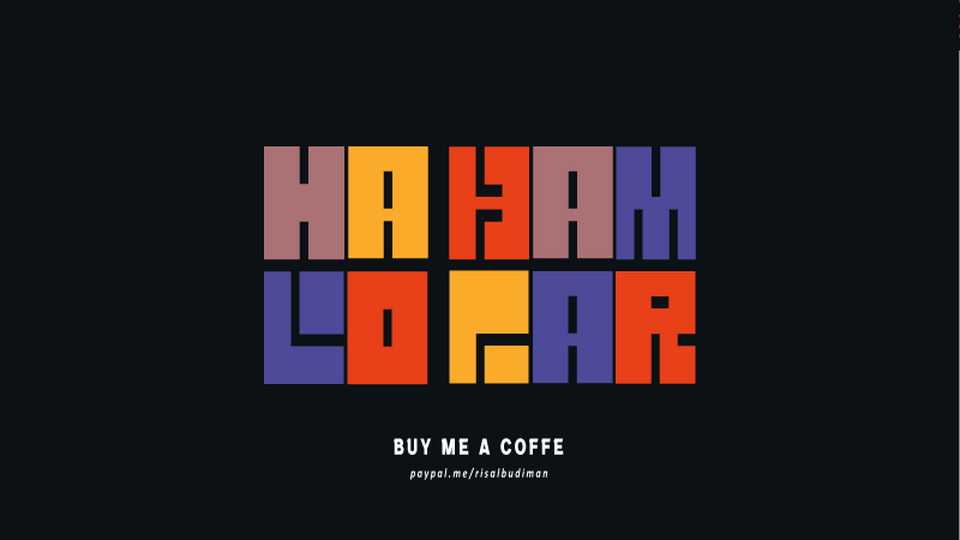
Download Halo Kampar font, a display typeface that has strong, modern and unique characters. Halo Kampar was named after hometown village and inspired by the large natural rocks with a thick and solid style.